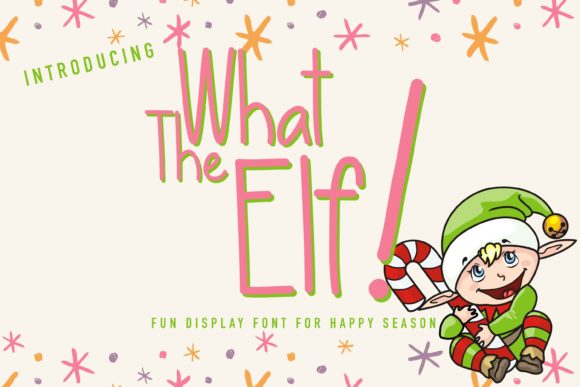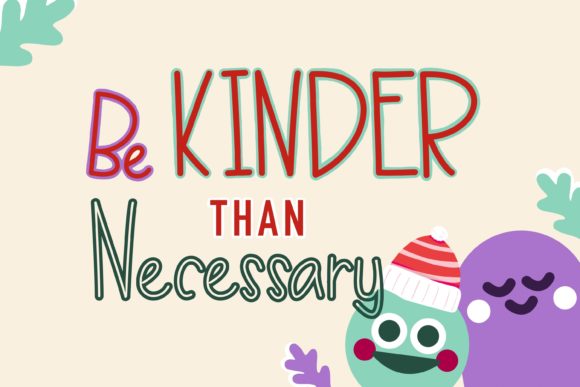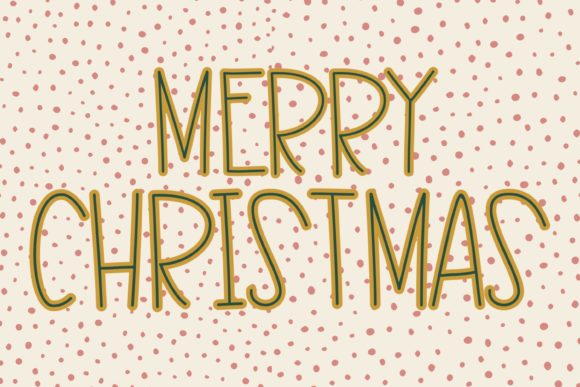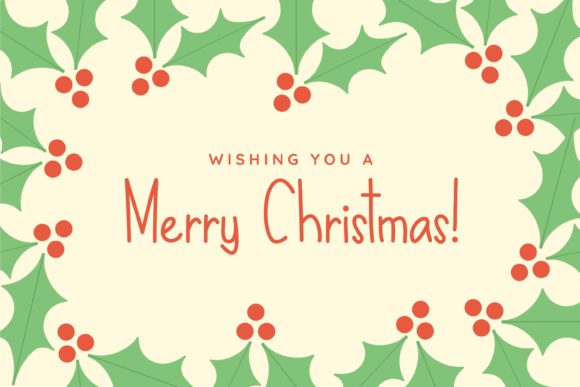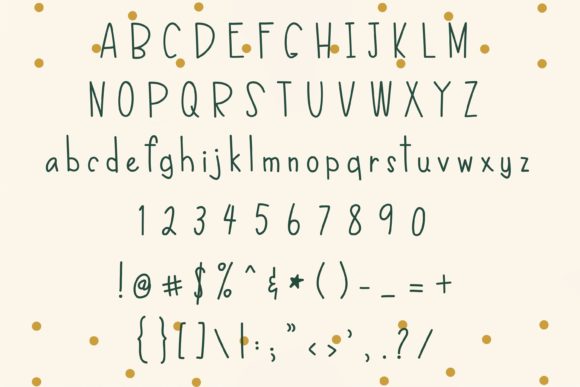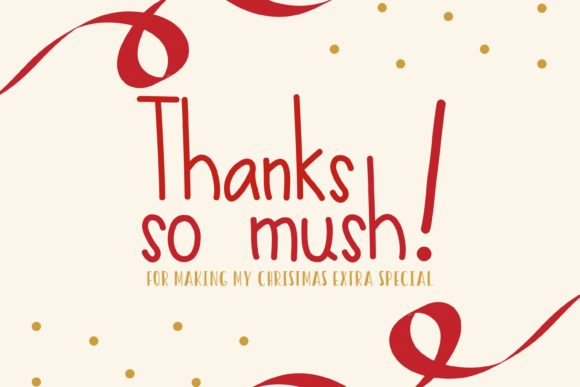
What the Elf! Font
About What the Elf! Font
What the Elf! is a cute, quirky and informal handwritten font. Its authentic look will add a personal and realistic feel to your designs. The only limit is your imagination!